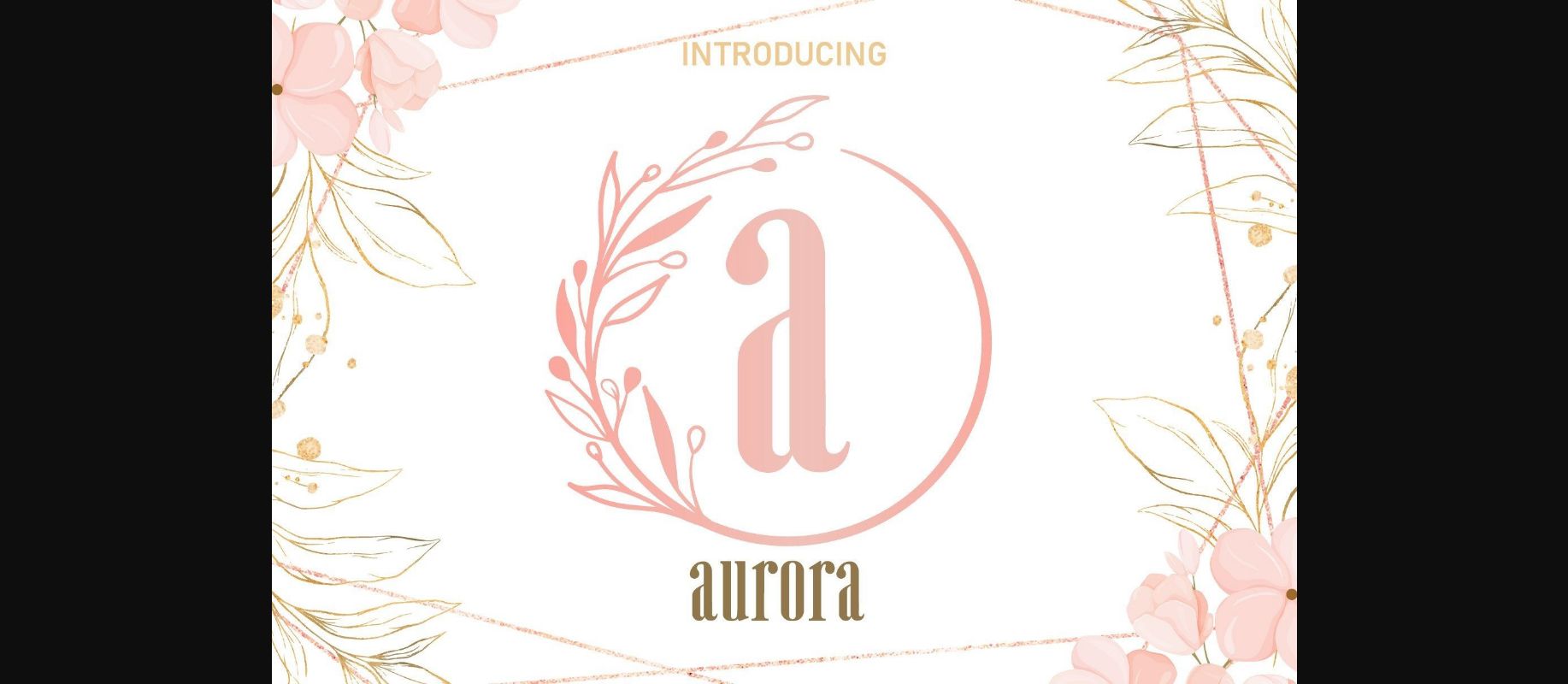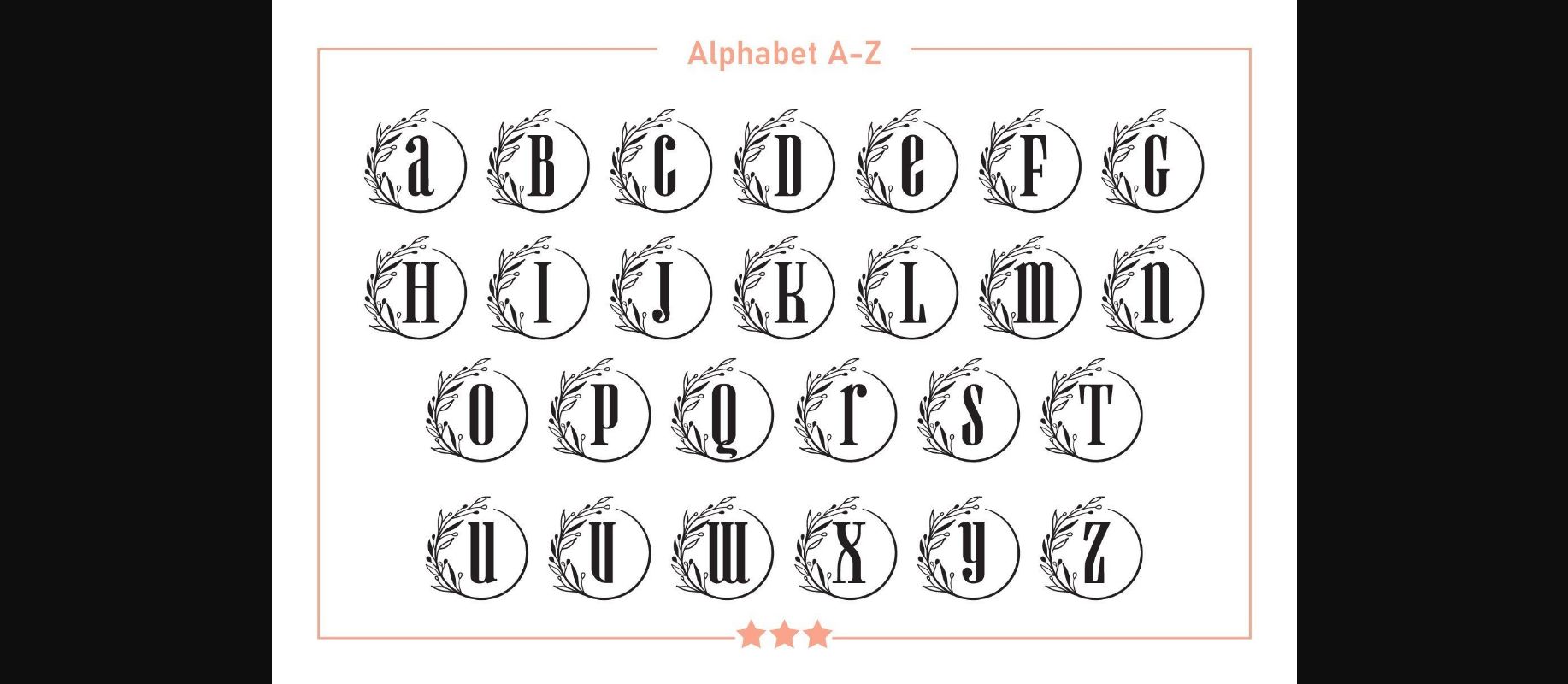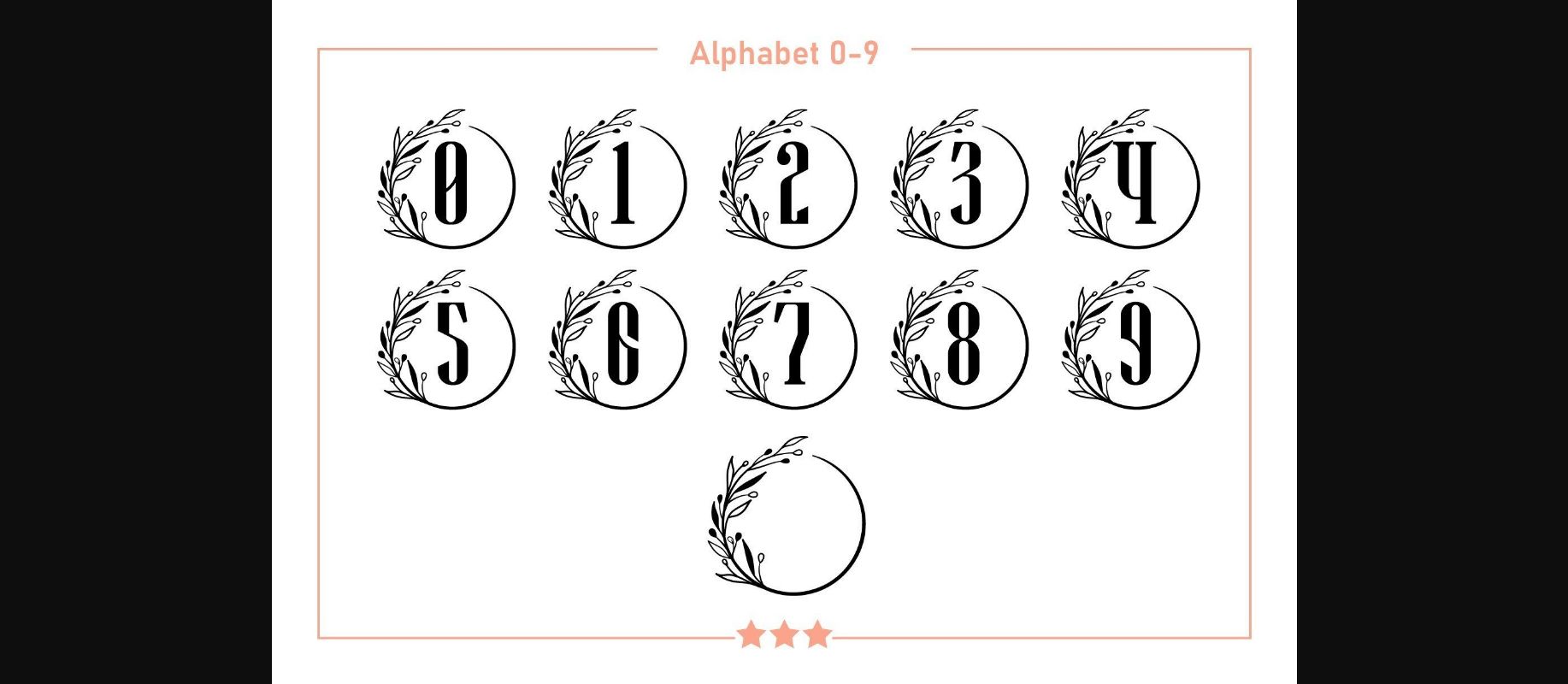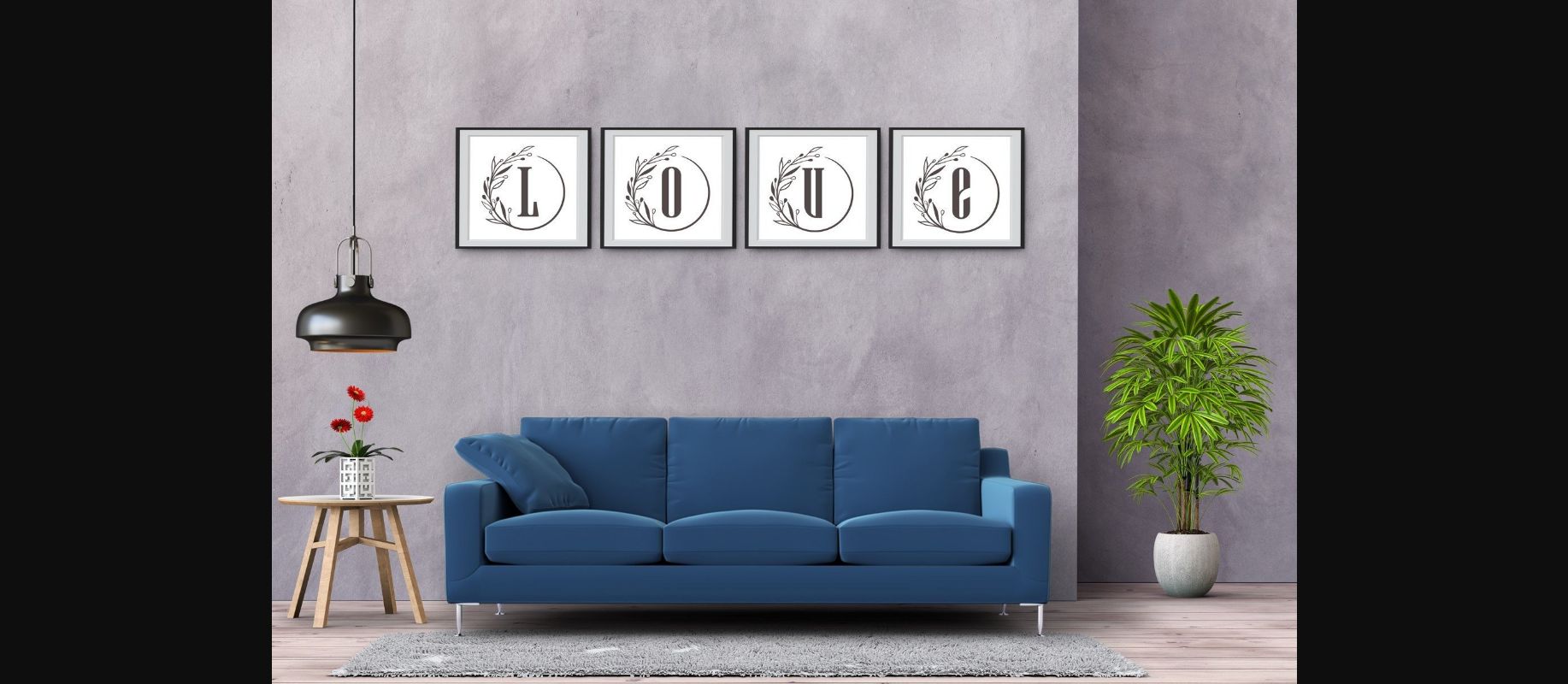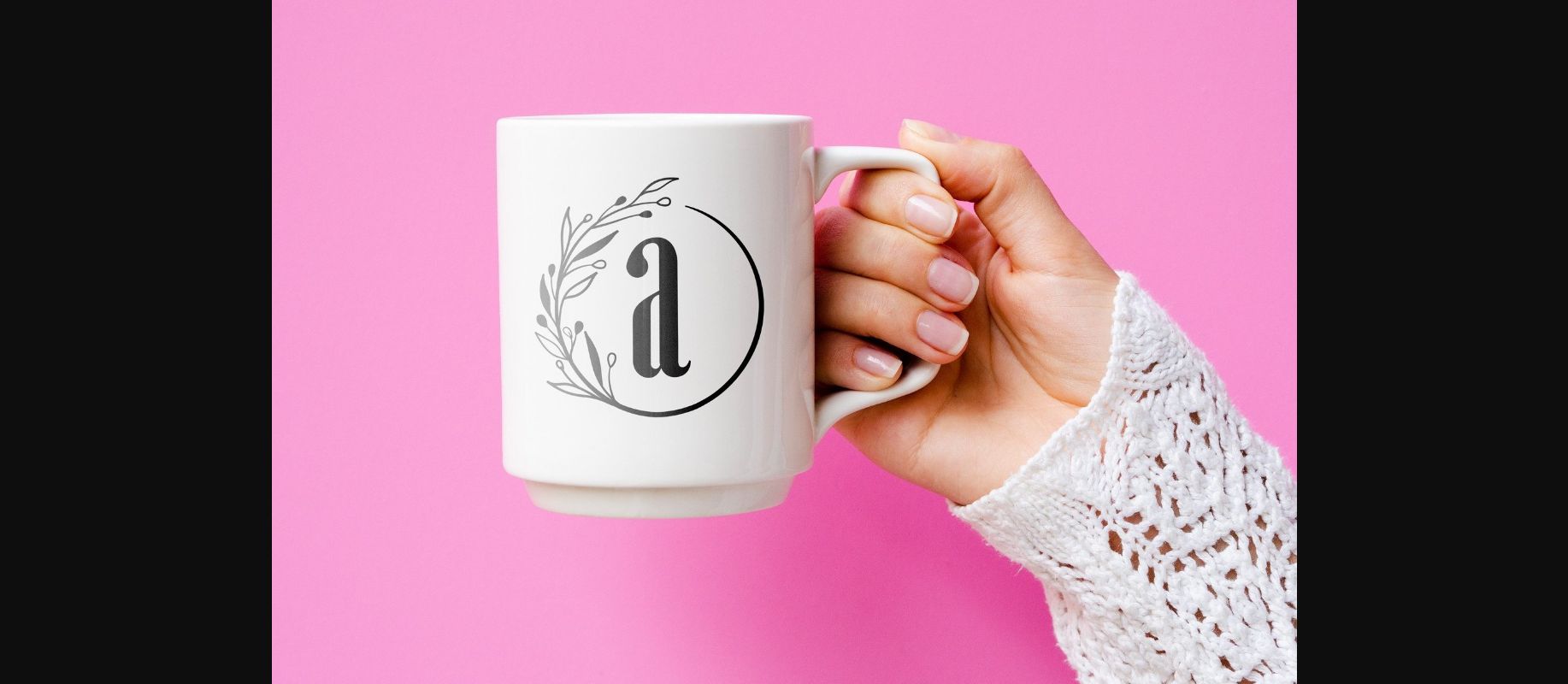
Aurora Leaf Circle Monogram Font
About Aurora Leaf Circle Monogram Font
Aurora Leaf Circle Monogram is a simple and unique decorative font. Add this romantic and lovely-looking font to each of your love letters, wedding invitations, or favorite design ideas, and you will be astounded by the outcome.